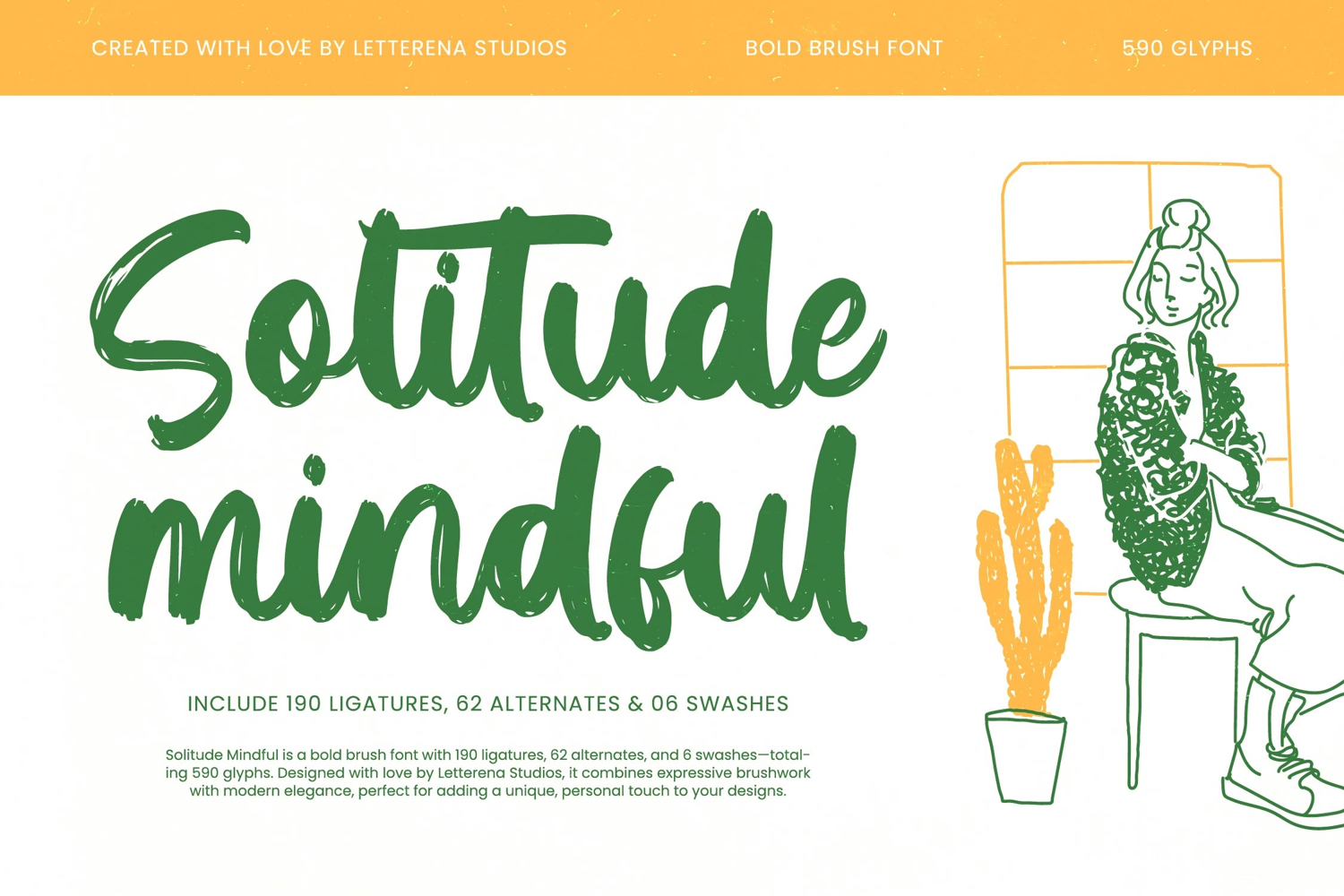
Solitude Mindful - Bold Brush Font
Solitude Mindful Italic
Solitude Mindful
Solitude Mindful - Bold Brush Font , from Letterena, is a Luxury Script font, suitable for any projects such as: logos, branding projects, homeware designs, product packaging, mugs, quotes, posters, shopping bags, t-shirts, book covers, name card, invitation cards, greeting cards, label, photography, watermark, special events, and all your other luxury and beautiful projects that need a Luxury Script taste.
190 Ligature 62 Alternate & 06 Swashes